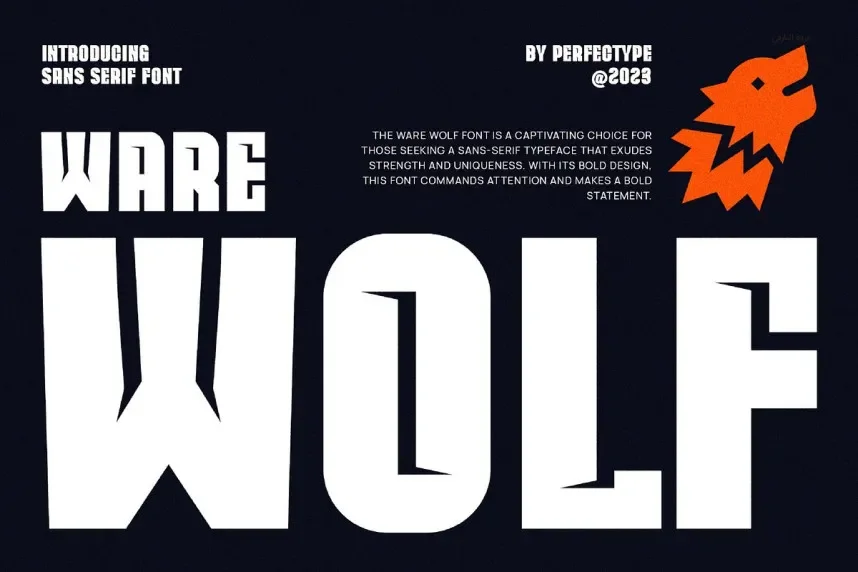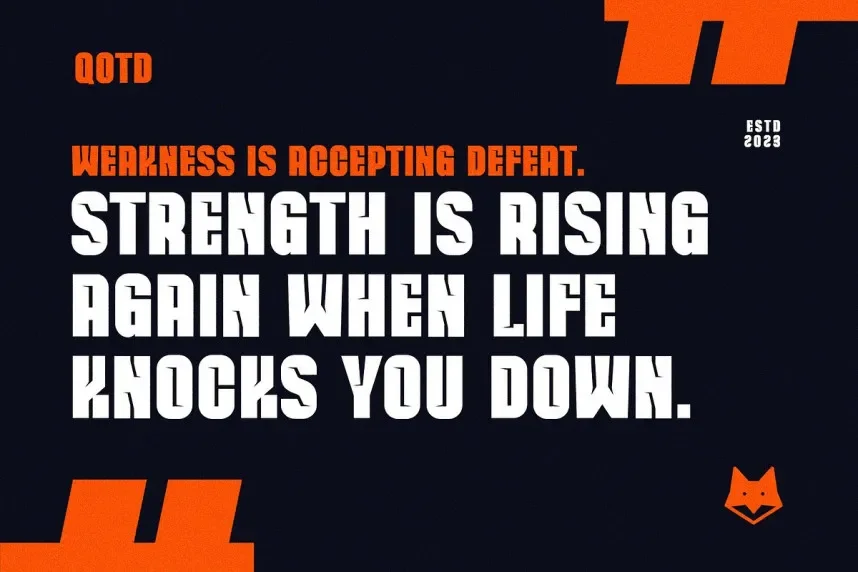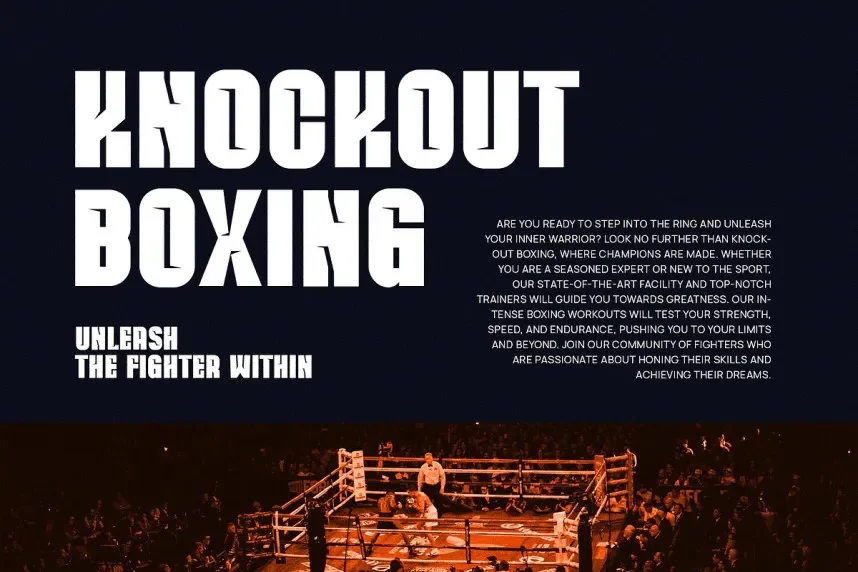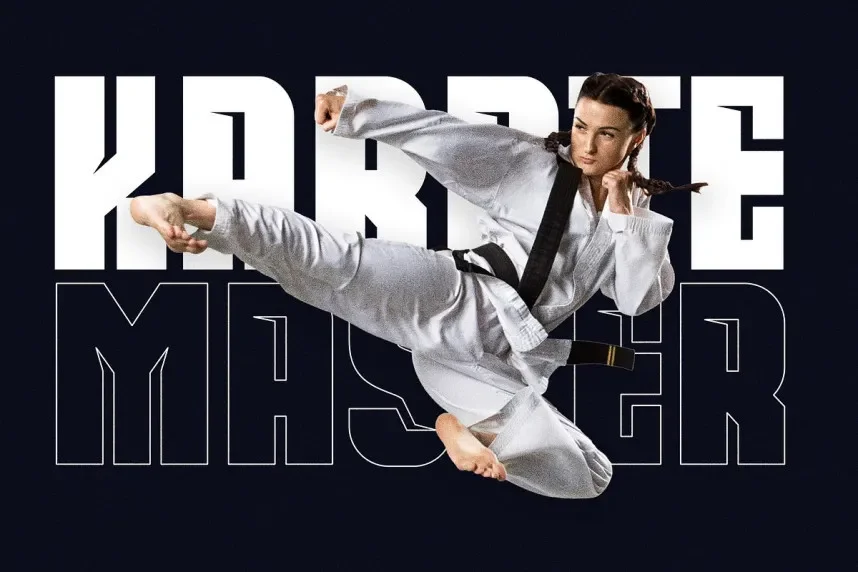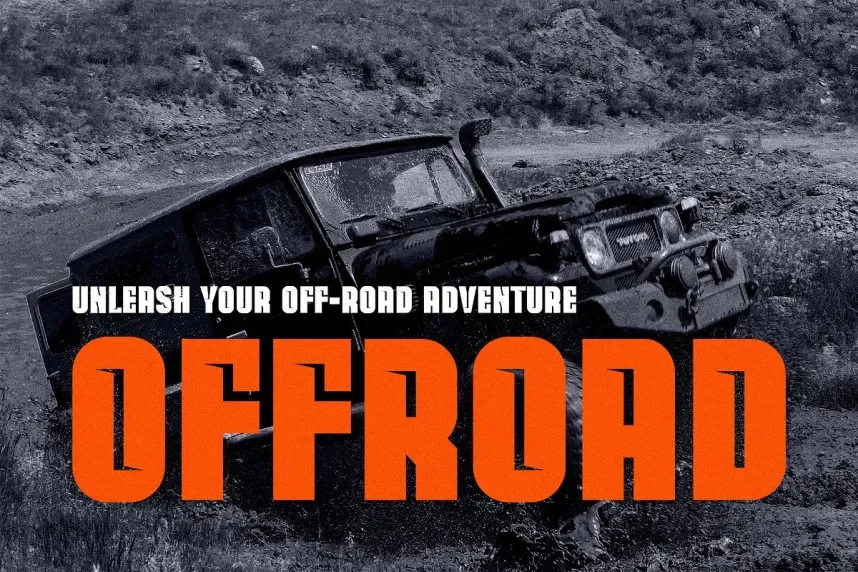
Ware Wolf Font is a bold, display typeface designed to evoke a strong, rugged presence. Its sharp edges and angular strokes make it perfect for branding projects, especially those related to adventure, sports, or extreme activities.